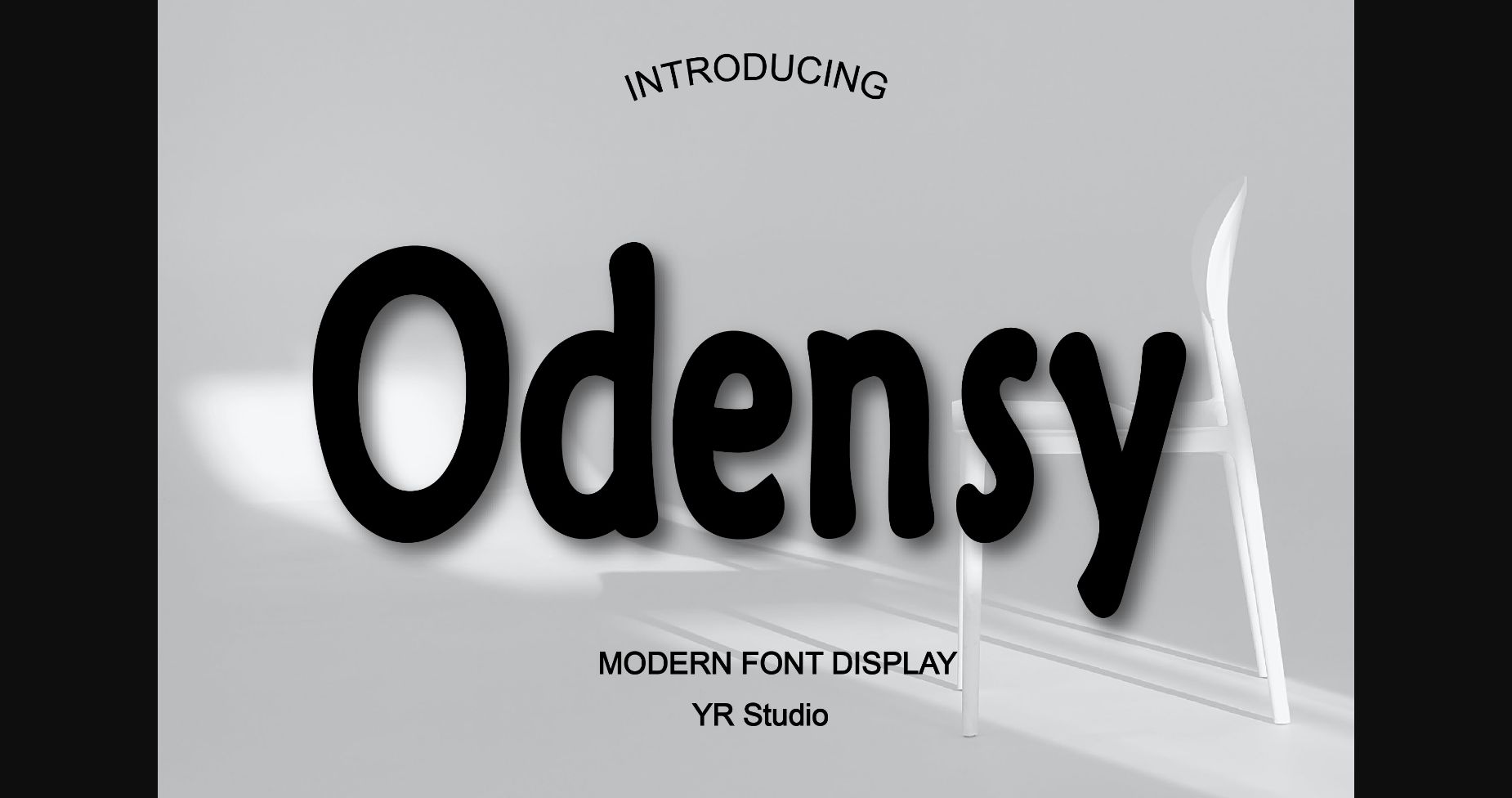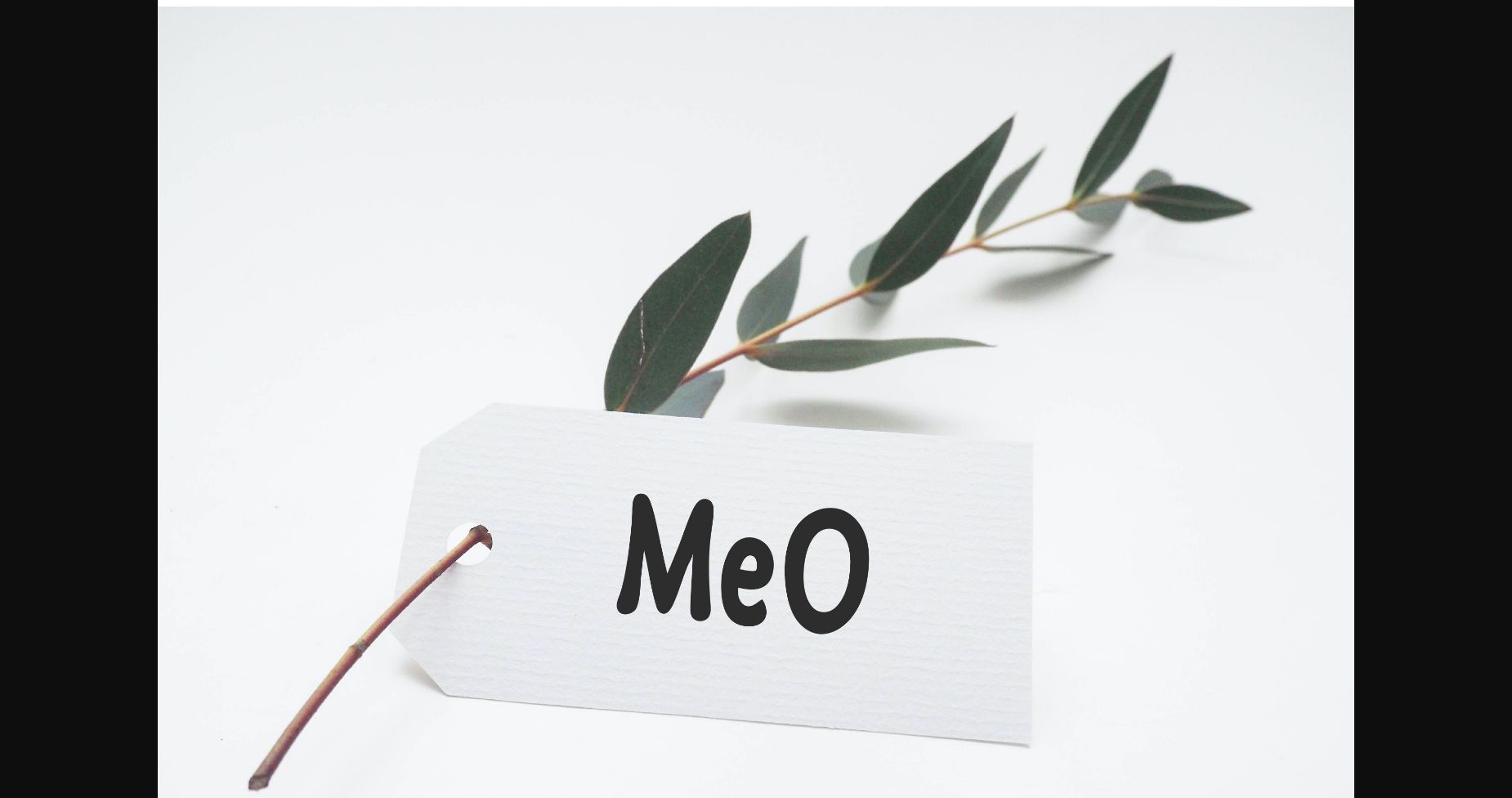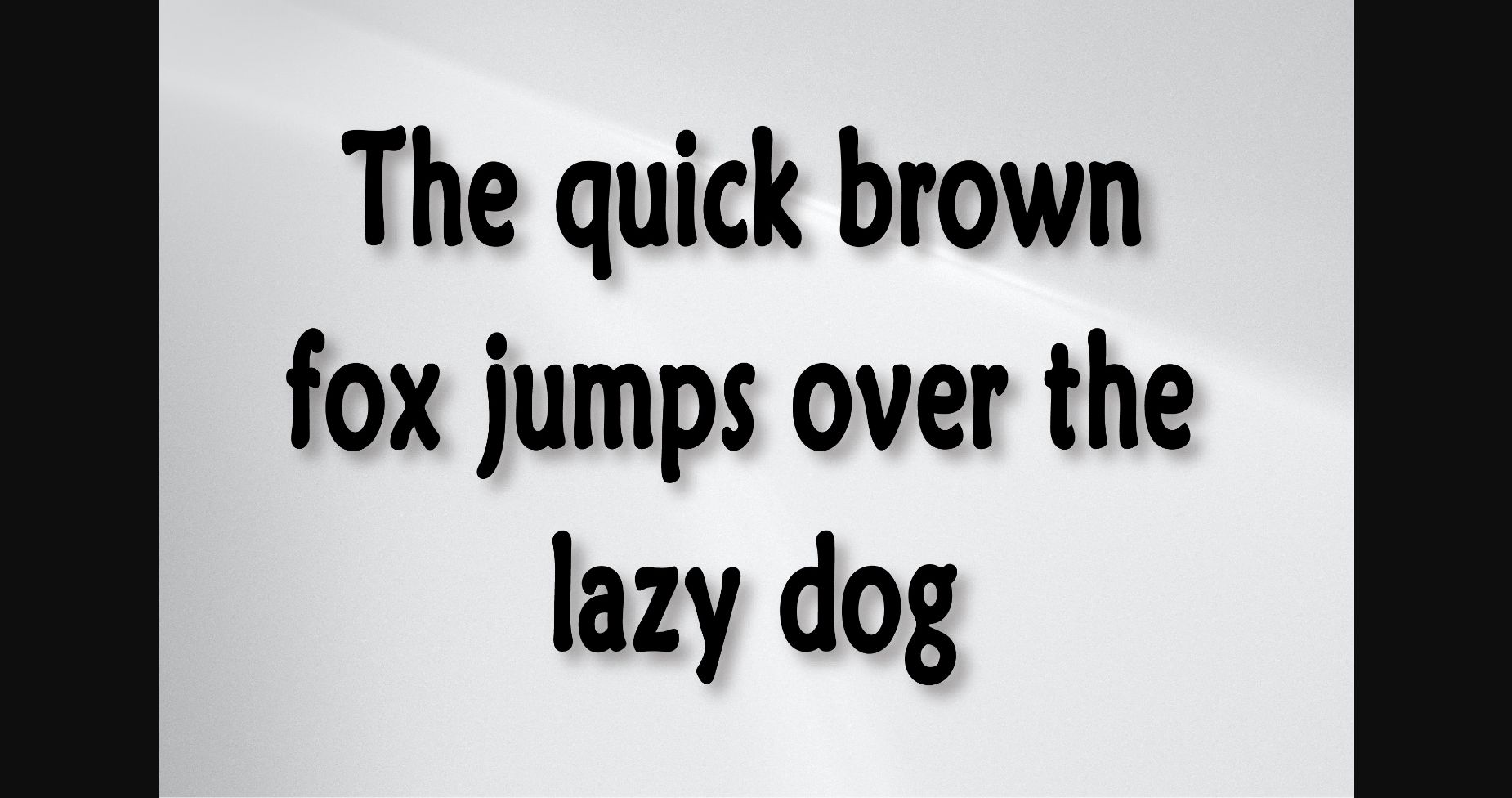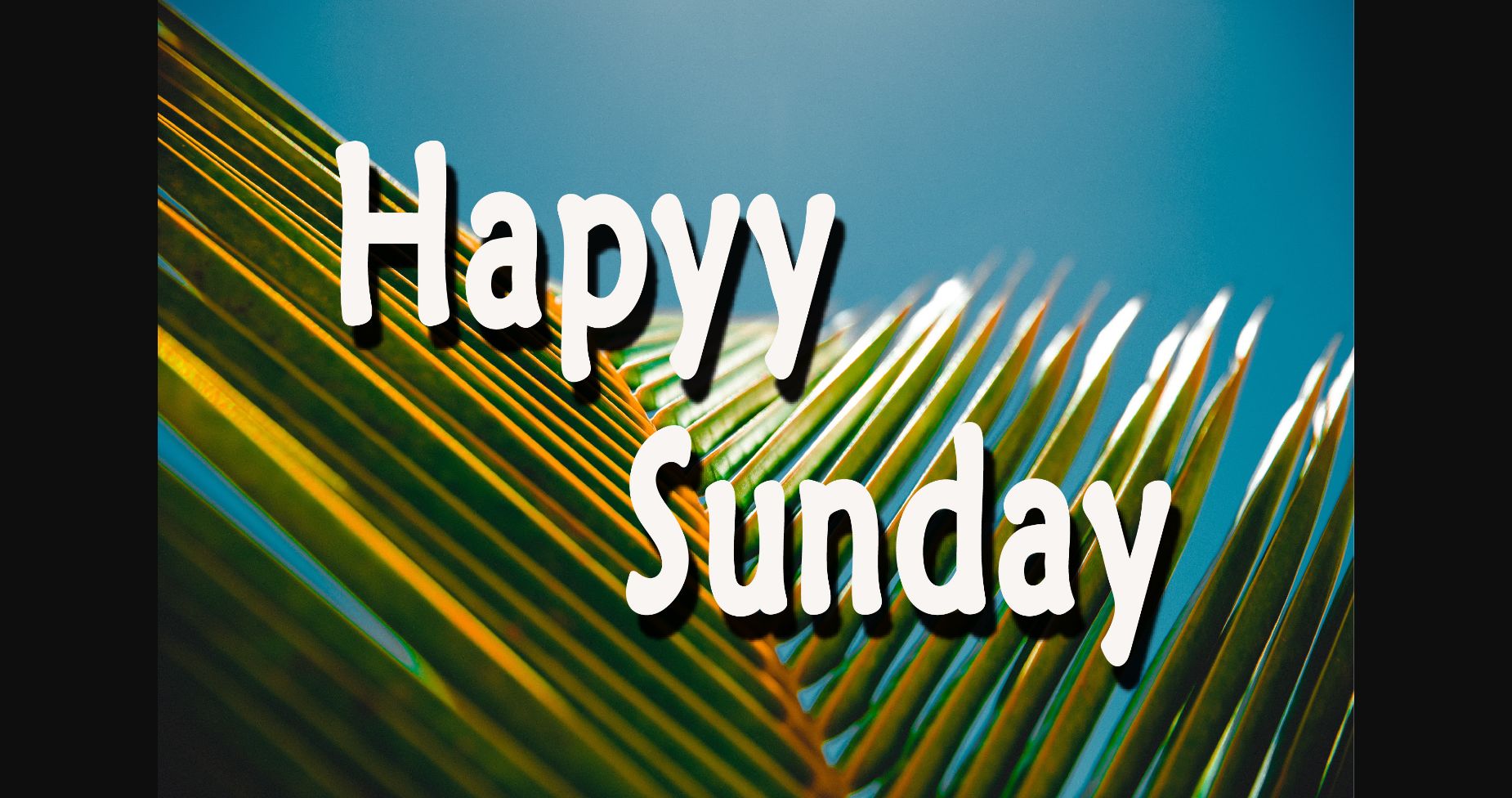
Odensy Font
About Odensy Font
Odensy is a modern and neat sans serif font. Its professional look proves its versatility, so you can easily add it to a wide range of design projects.